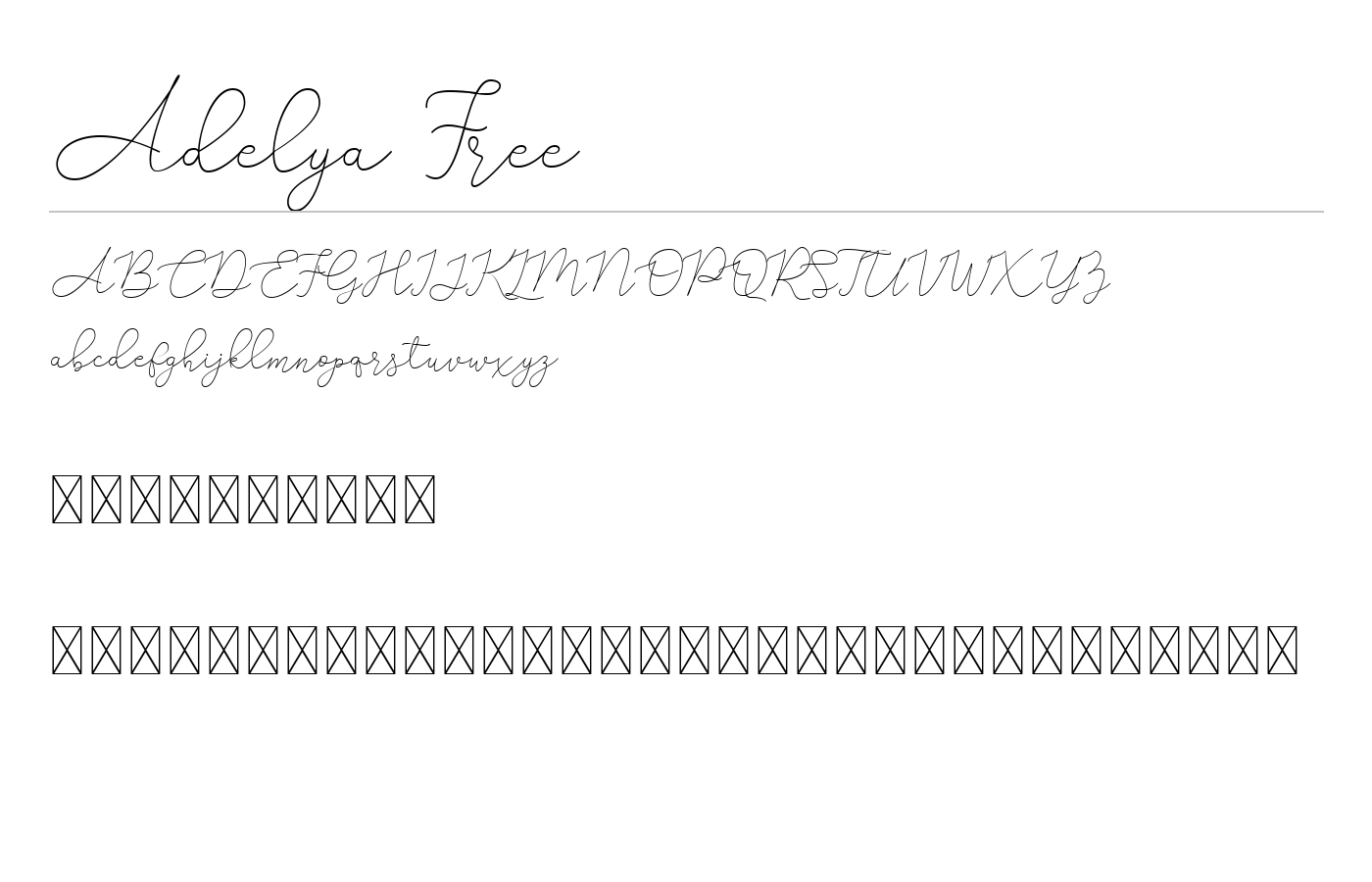
Adelya Free Font is an elegant and delicate script typeface characterized by its thin, flowing strokes and graceful, hand-drawn style. Its light weight and high, airy x-height give it a refined, sophisticated feel, making it perfect for wedding invitations, branding, and other designs that require a touch of elegance and personal charm. This font works best in decorative contexts where a soft, romantic mood is desired.
Adelya Free Font
About Adelya Free Font